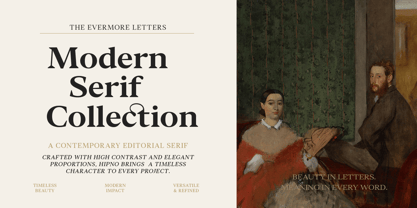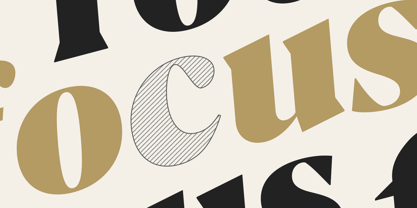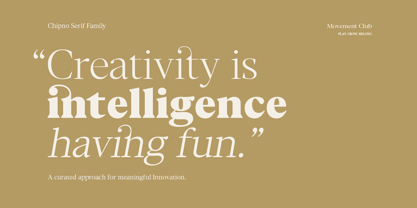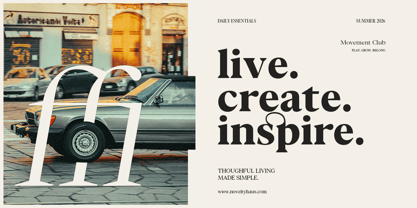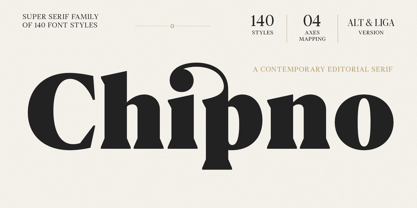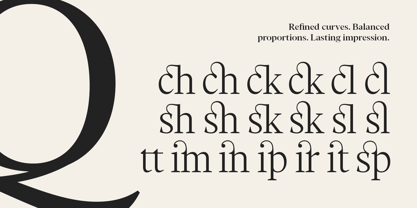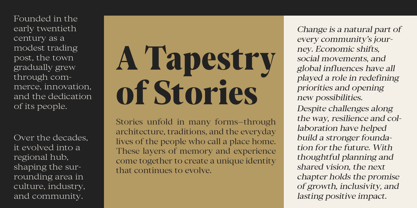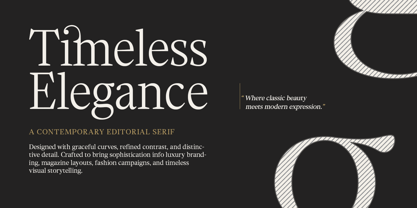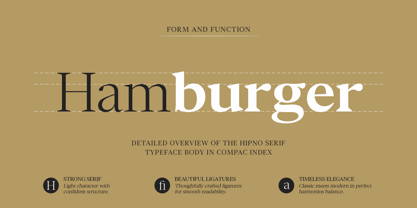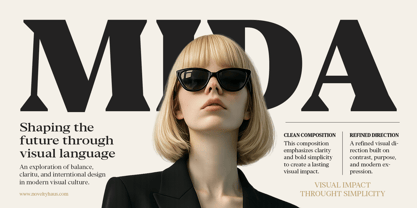
Chipno
by Attract Studio
Chipno is a contemporary editorial serif family designed to bring sophistication and bold character to modern typography. Featuring elegant high-contrast letterforms, refined proportions, and expressive italics, Chipno is ideal for luxury branding, fashion editorials, magazine headlines, packaging, logos, and premium visual identities.
With 140 font styles, 4 width axes (Condensed, Semi Condensed, Normal, Semi Expanded, and Expanded), plus alternate characters and ligatures, Chipno offers exceptional flexibility for both striking display typography and polished editorial layouts. Whether you're creating timeless branding or modern creative projects, Chipno delivers a distinctive balance of elegance, versatility, and visual impact.
Designers: Muammar Kadafi
Foundry: Attract Studio